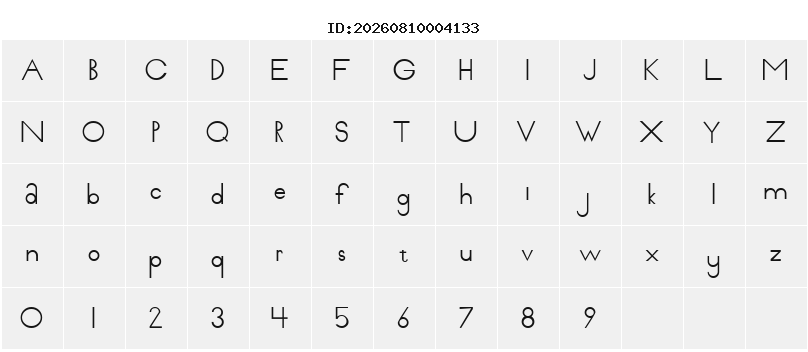
• Font Name: Pabloco
About Pabloco.ttf
Pabloco.ttf is a modern, elegant sans-serif font designed for ultimate readability and visual harmony. Perfect for branding, headlines, web design, and print materials.